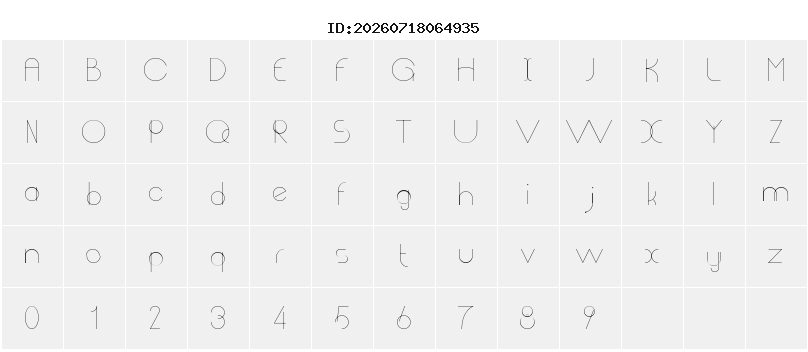
• Font Name: Chempaka Ranting
• Full Font Name: Chempaka Ranting
• Designer: cenz qobbal
About Chempaka Ranting.ttf
Chempaka Ranting.ttf is a modern, elegant sans-serif font designed for ultimate readability and visual harmony. Perfect for branding, headlines, web design, and print materials.